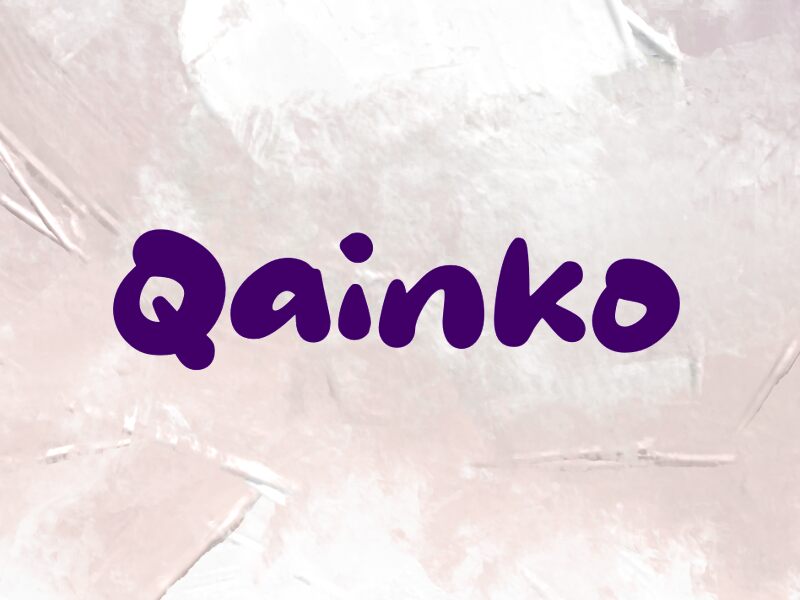
Qainko font, designed by wep, is a fun cartoon font with informal, casual, and friendly manner. All capital letters, as well as numbers, are made in a soft style that makes them approachable and inviting. Classified in the modern category, this free font will allow you to create compelling relaxed messages.
Use Qainko in movie posters, YouTube videos, music album covers, children’s book covers, kid contests ads, or video games. Explore its possibilities more with birthday greetings, playful flyer designs, food & beverage business identity, packaging, magazines, and others.
Qainko is an elegant and modern free font that enhances your design projects with its unique style. Perfect for a variety of applications, this font is ideal for both digital and print media. Whether you are working on a personal project, branding, or marketing materials, Qainko offers versatility and legibility.